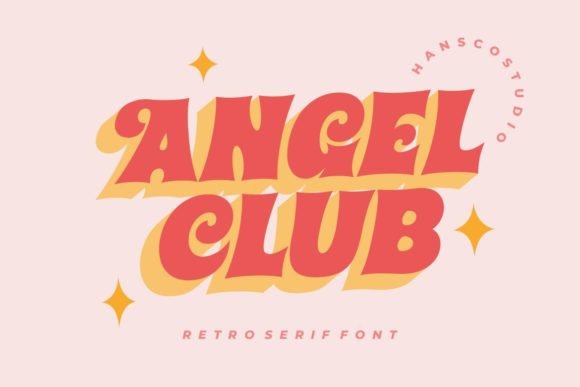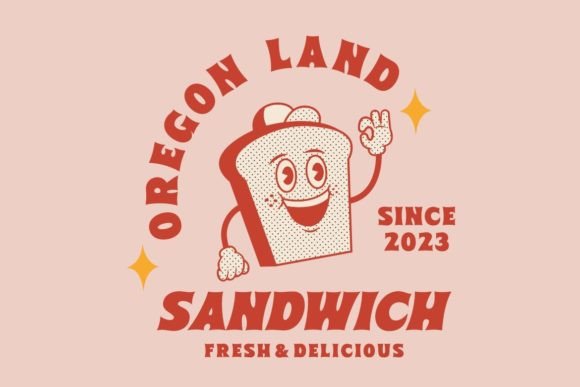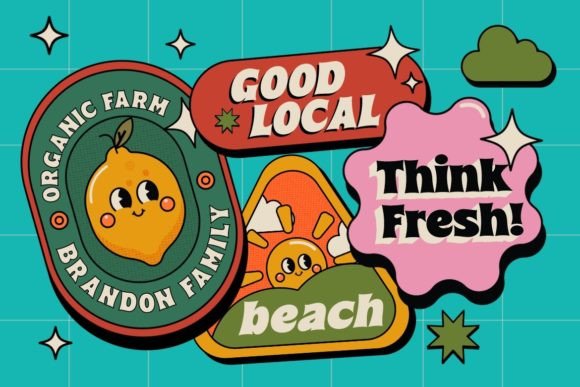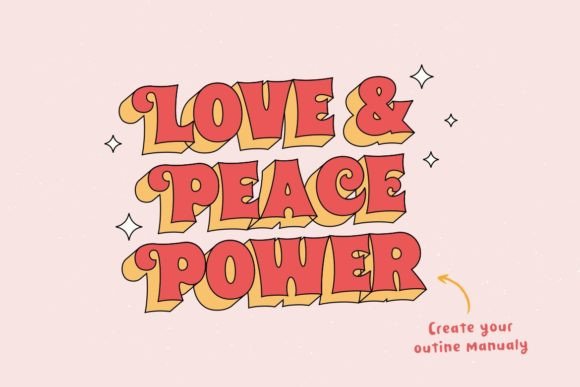
Angel Club Font: A Bold Retro Serif for Eye-Catching Logo Design
About the Angel Club Font
From logos to headlines, the Angel Club Font is the perfect choice for making a lasting impression. Angel Club font is a retro serif and bold display font. You will get four types of fonts in this pack, Regular, slanted and Shadow version. Use this display font to add that special retro touch to any design idea you can think of!
Angel Club’s bold, retro style makes it ideal for headlines, posters, and branding projects requiring a vintage aesthetic. It works exceptionally well for short, impactful statements and logos, adding a touch of nostalgic flair. However, its strong character and limited weight variations make it unsuitable for body text or UI elements where readability over extended lengths is crucial.
Pairing Angel Club effectively depends on the desired overall feel. For a classic, balanced look, consider pairing it with a clean sans-serif like Helvetica or a more contemporary geometric sans-serif. To enhance its retro vibe, a playful script font could add personality. Avoid pairing it with other bold or heavily ornamented fonts; the combination might appear cluttered.
Its core personality is confident and playful, yet undeniably retro. Brands aiming for a vintage-inspired look with a touch of bold energy will find Angel Club particularly effective. Think vintage clothing brands, retro-themed events, or any project seeking a strong visual impact that evokes a sense of nostalgia.
Angel Club Font Usage Examples
Angel Club Font Example